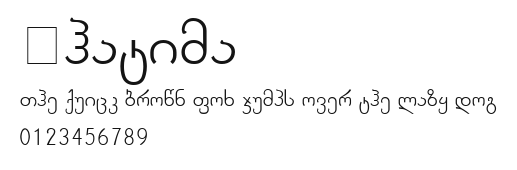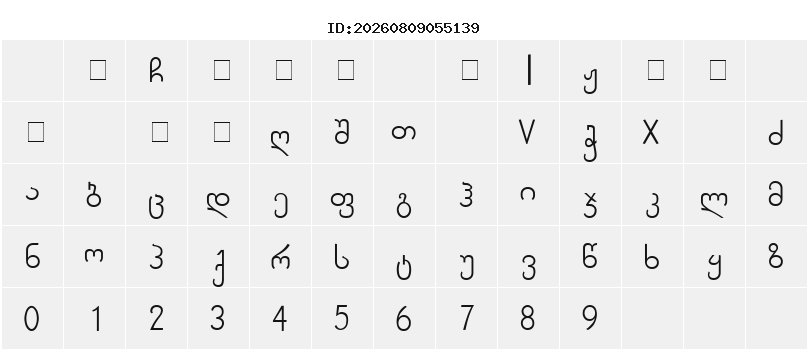
• Font Name: Phatima
• Full Font Name: Phatima
About Phatima.ttf
Phatima.ttf is a modern, elegant sans-serif font designed for ultimate readability and visual harmony. Perfect for branding, headlines, web design, and print materials.